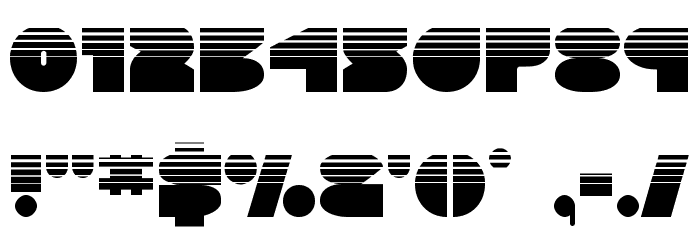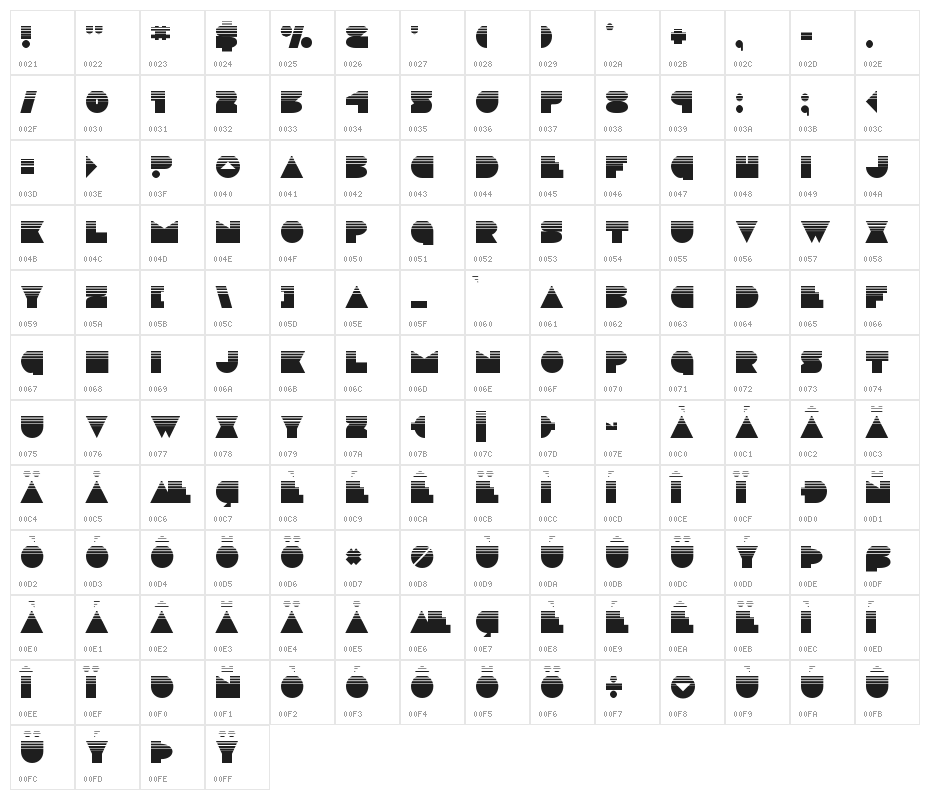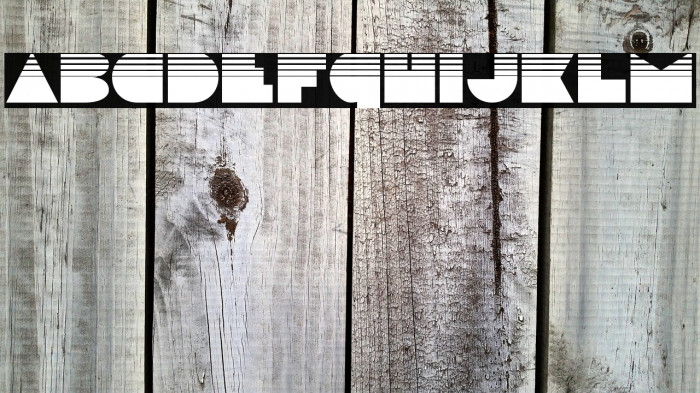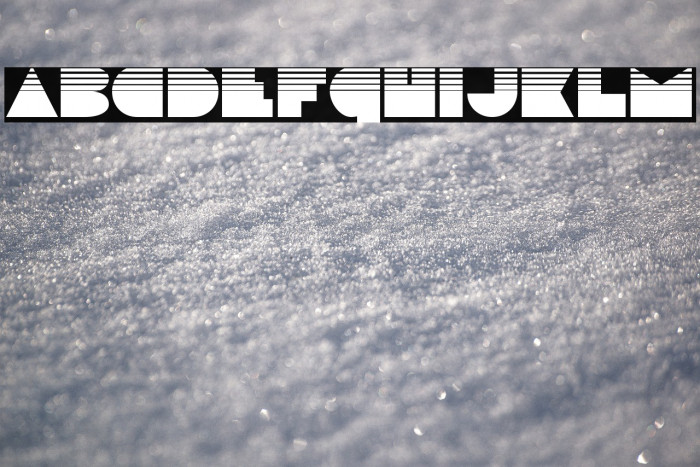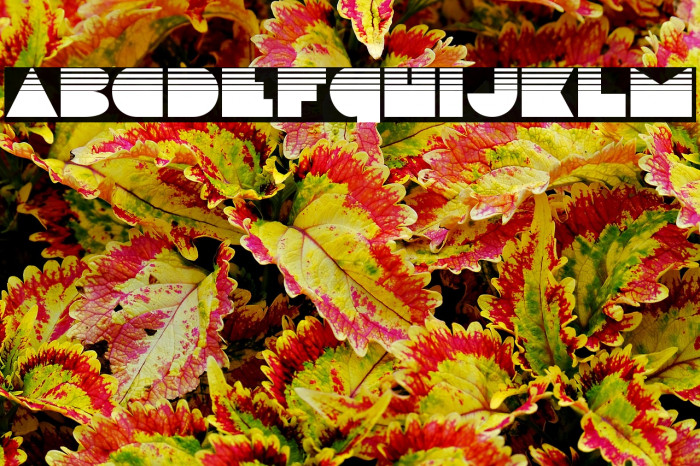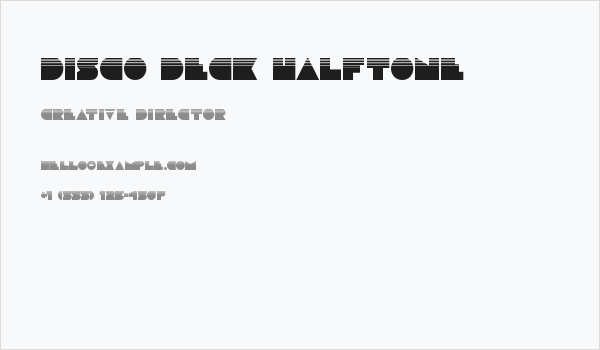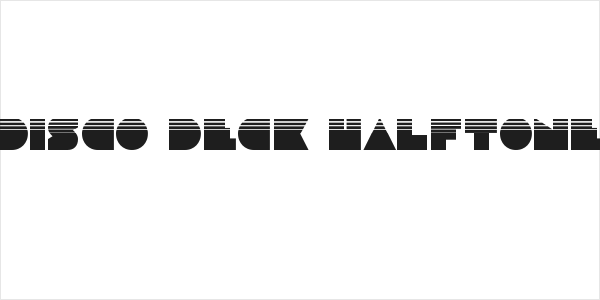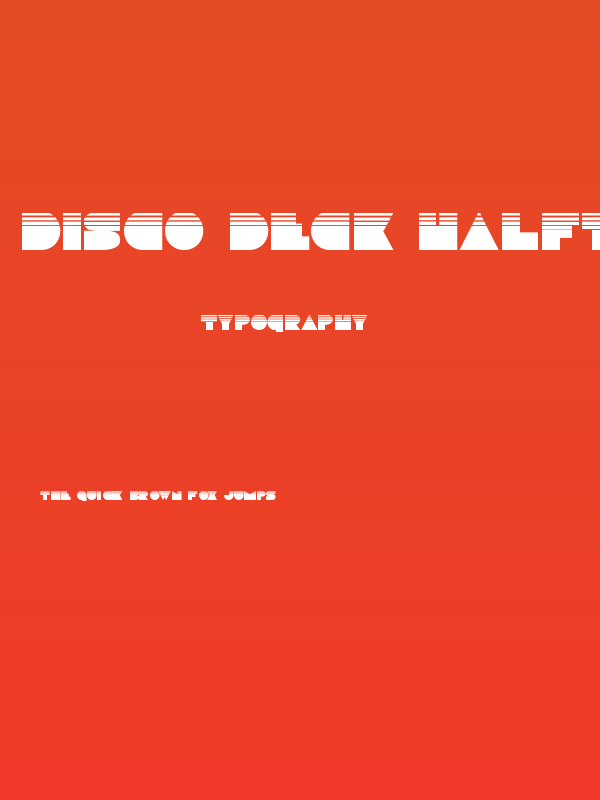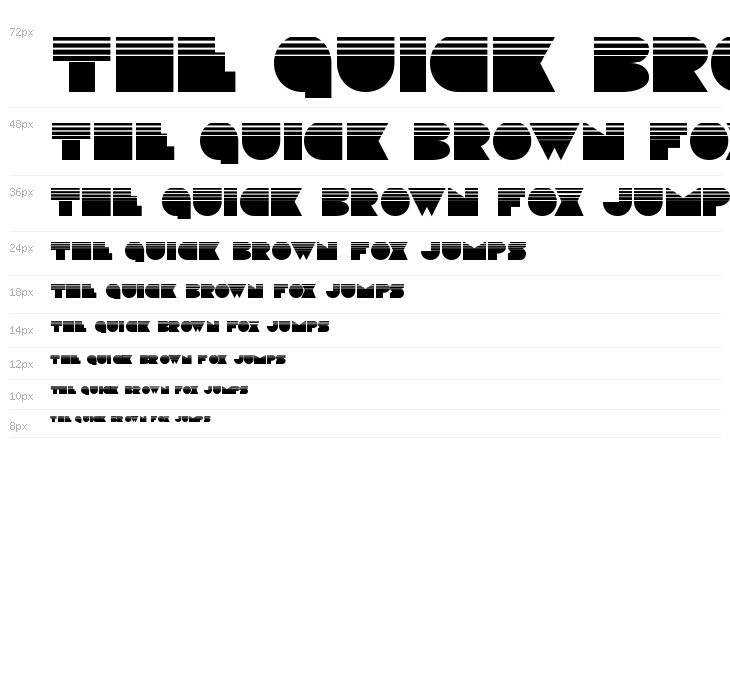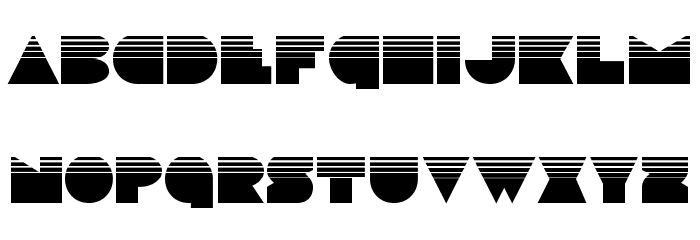
Disco Deck Halftone Font
Disco Deck Halftone Description
This font features a bold and geometric design with a distinct halftone effect. Each character is constructed with solid shapes and horizontal lines, creating a unique visual rhythm. The uppercase and lowercase letters maintain a consistent style, emphasizing boldness and symmetry. The numbers and special characters follow the same geometric pattern, ensuring uniformity across all glyphs. This font's striking appearance makes it ideal for eye-catching designs, where a modern and artistic touch is desired. The halftone effect adds a layer of complexity, making it suitable for projects that aim to stand out.